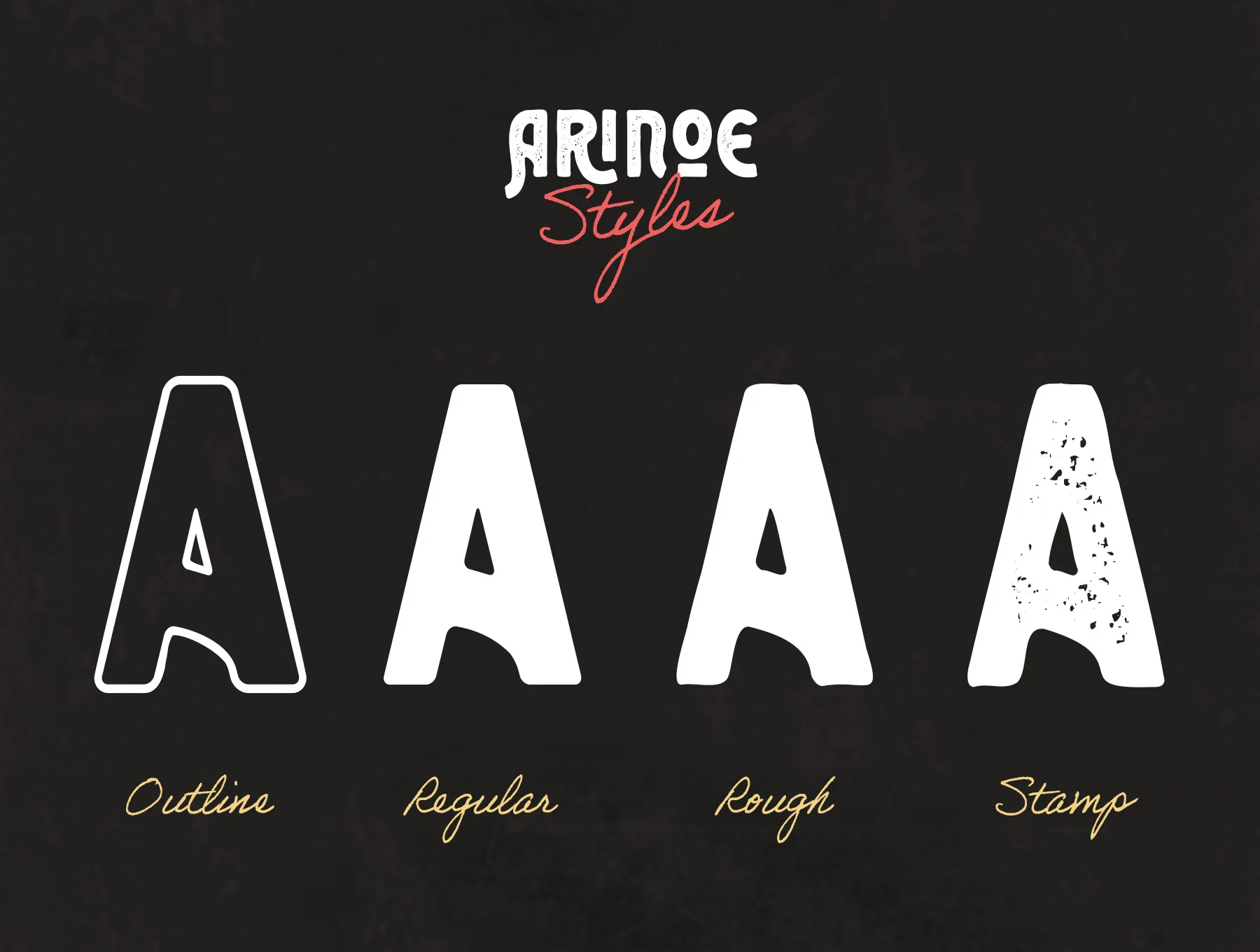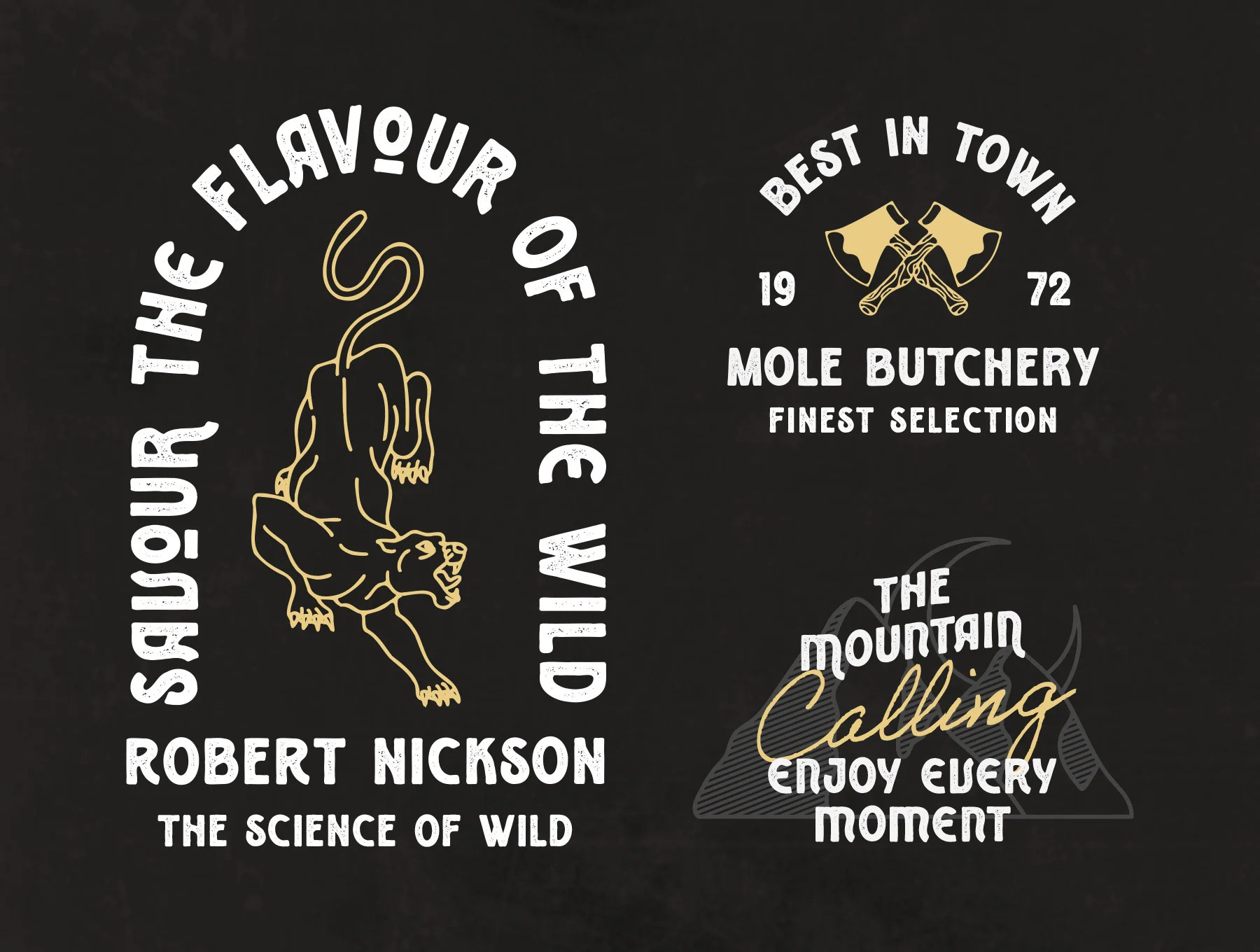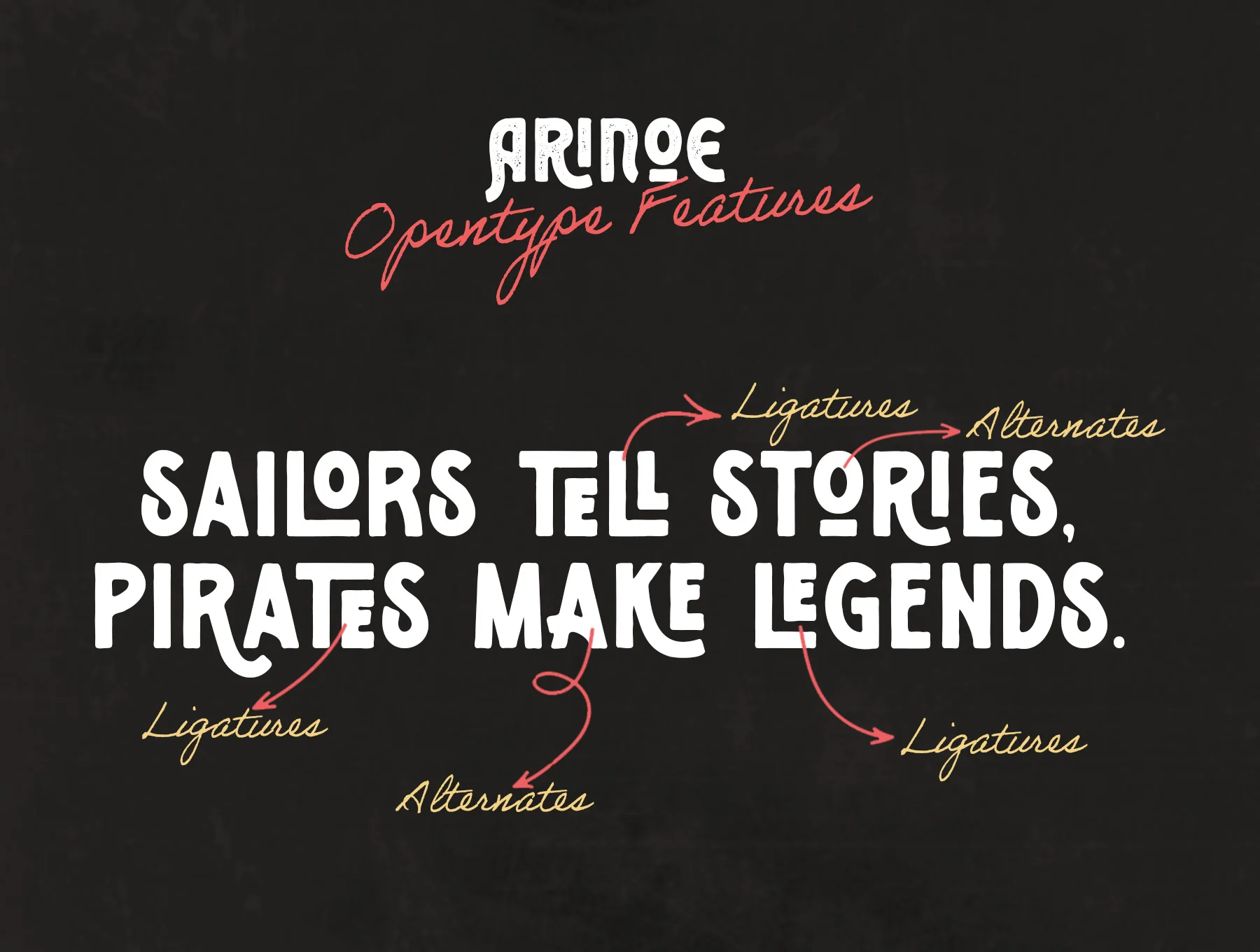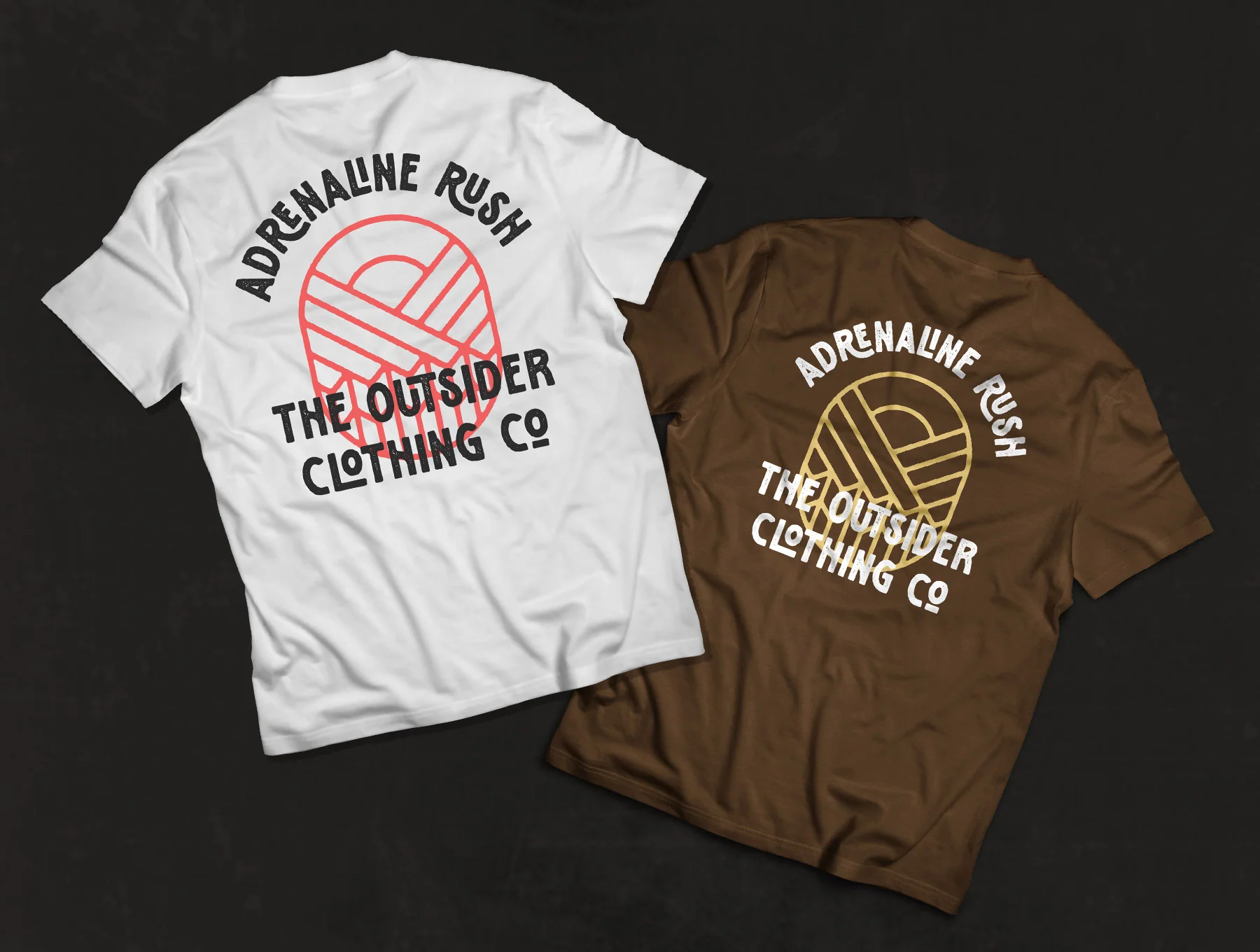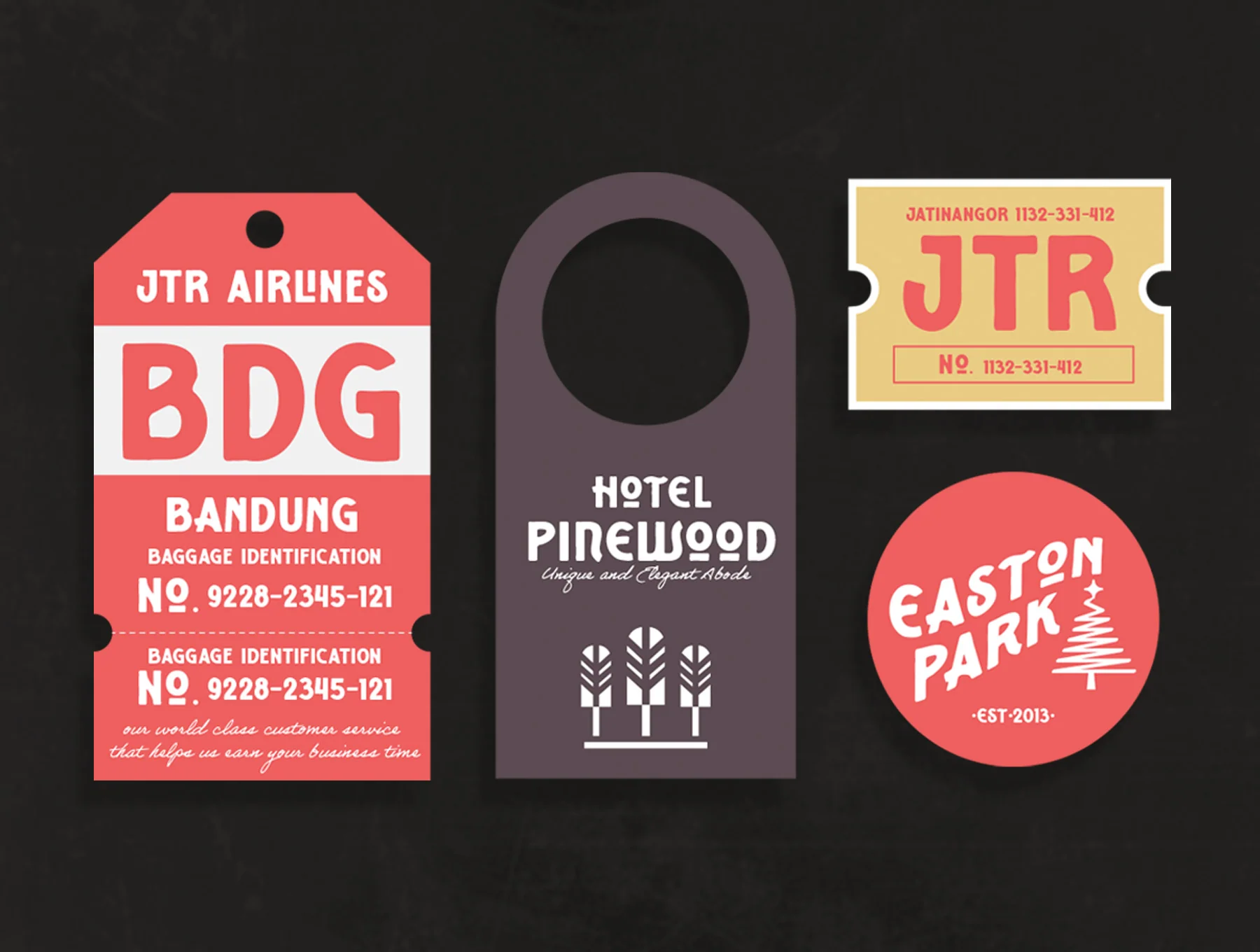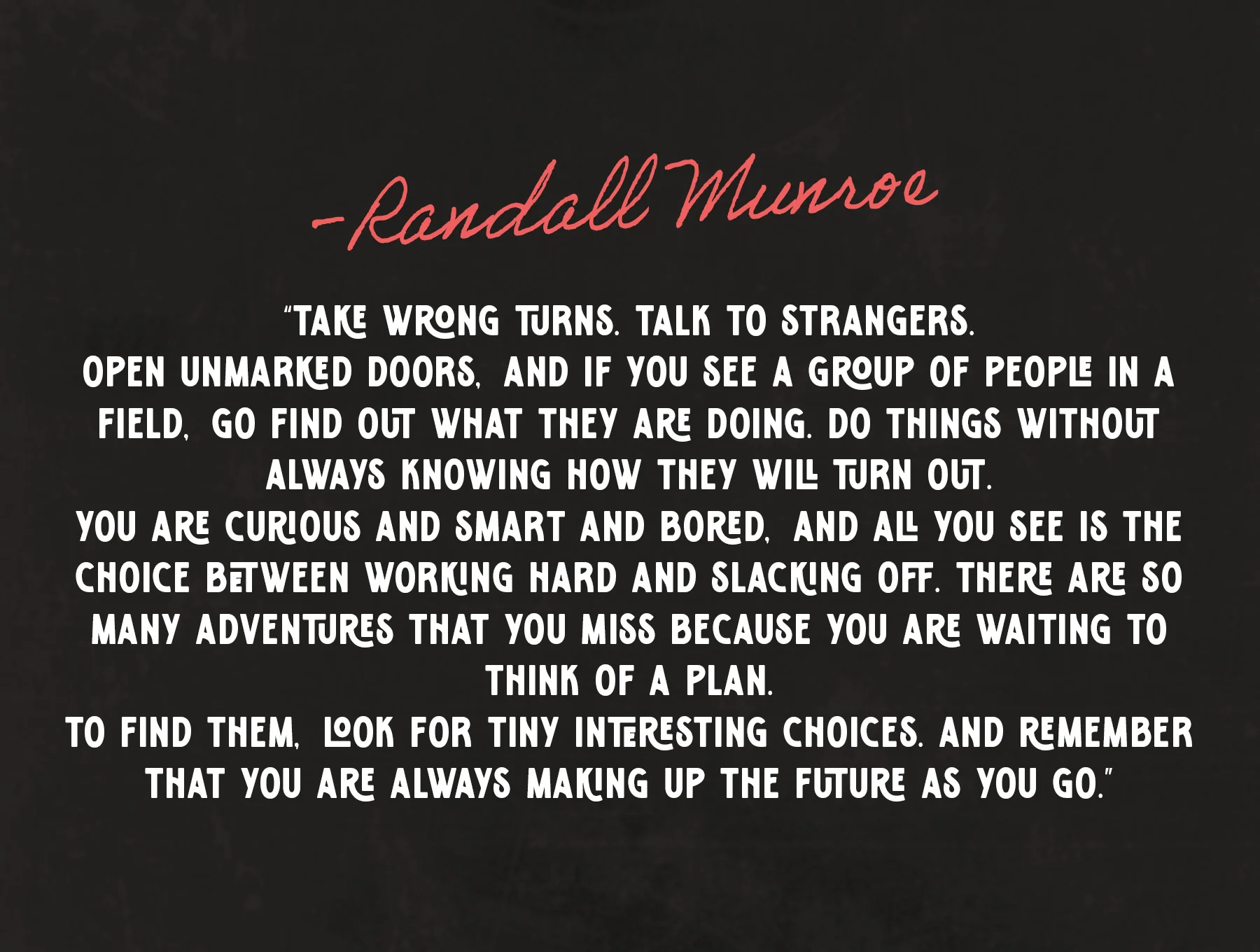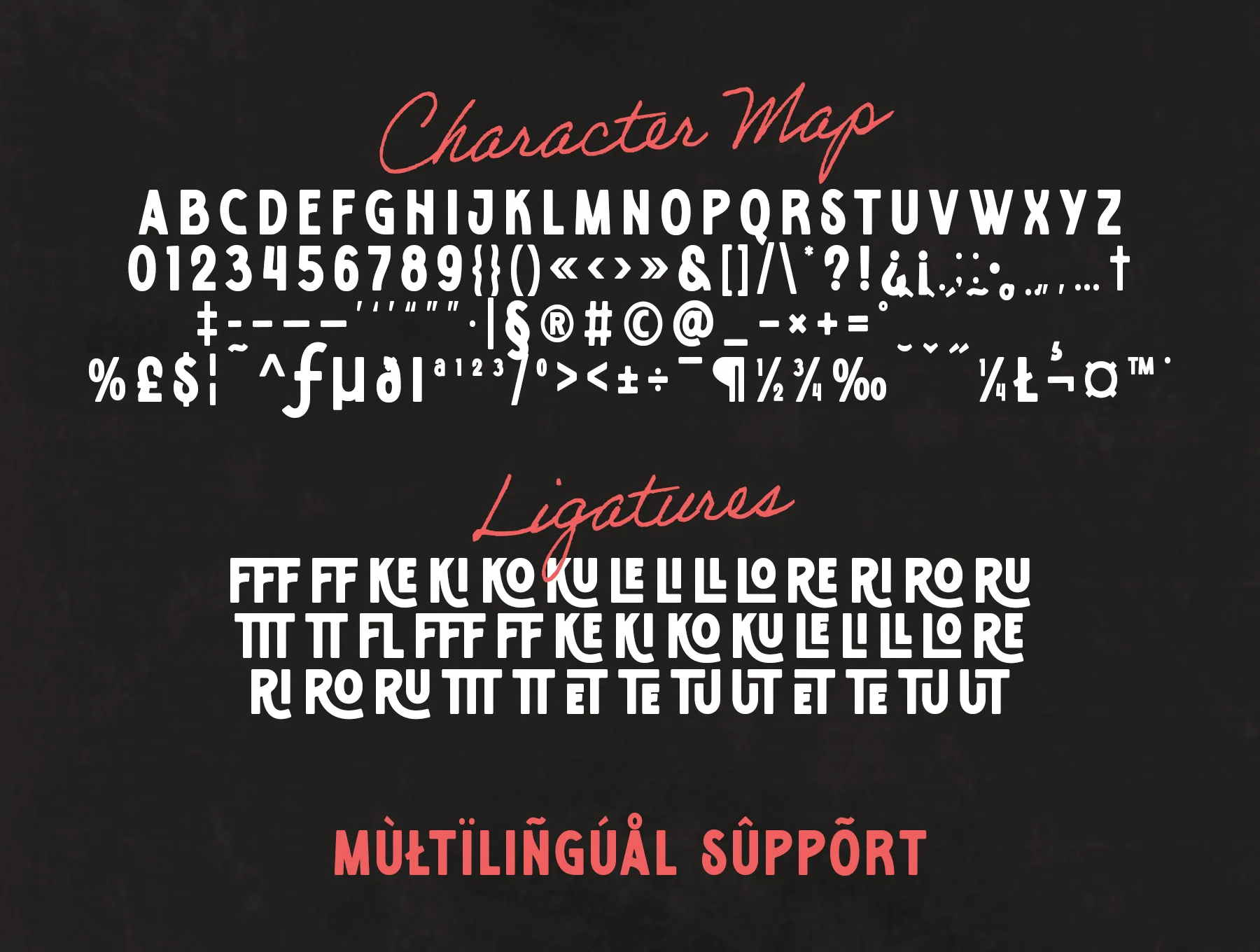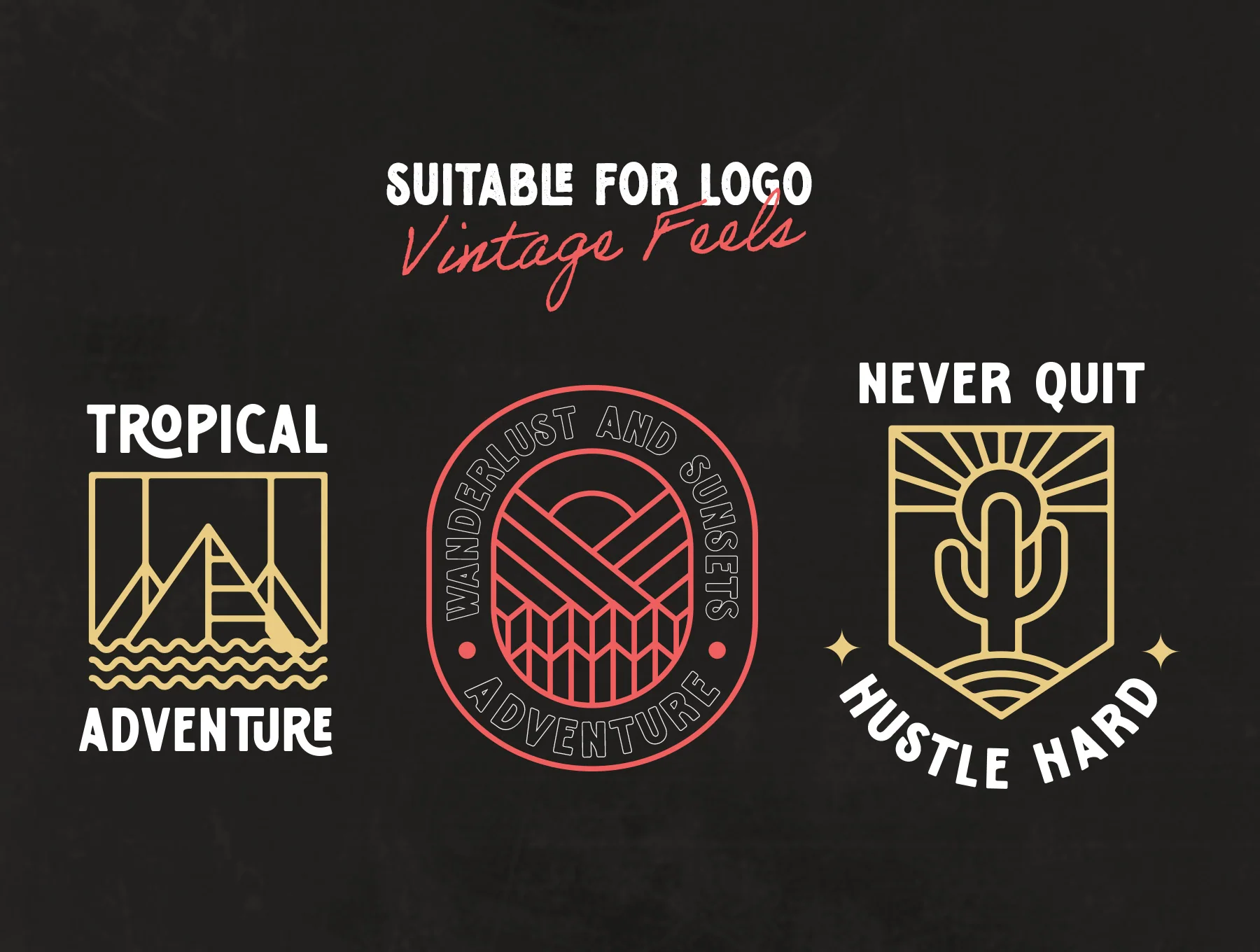
Arinoe - Vintage Display Font
A vintage grunge sans serif font with decorative flair
Capital letters, numbers, and punctuation marks
Multilingual language coverage
Ligatures with alternate styling
Arinoe is a vintage display sans with authentic aged style, rustic texture, and grunge character. Packed with alternates and ligatures, it suits apparel, branding, posters, and signs. Includes Arinoe Regular, Rough, Outline, and Vonder Stamped. Access alternates via Glyphs: Photoshop Window > Glyphs, Illustrator Type > Glyphs.